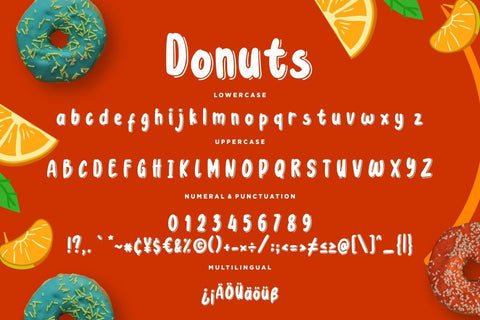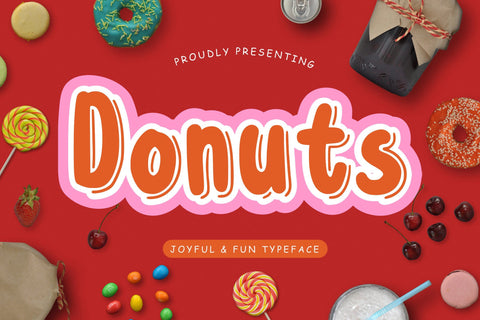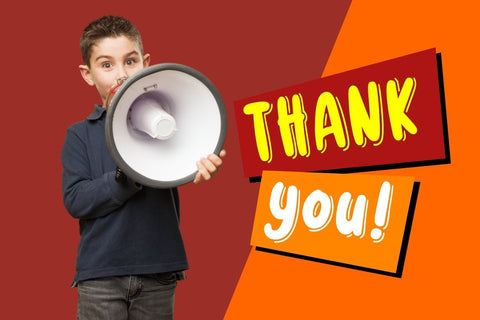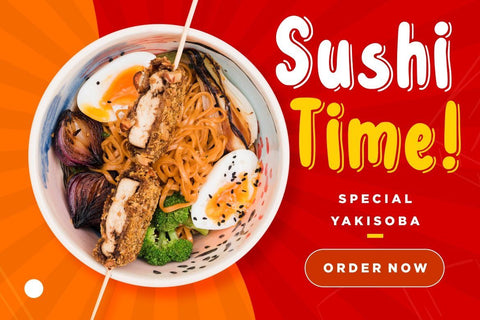
Donuts Joyful & Fun Typeface
Donuts is fun and joyful bold font which suitable to use for children related occasion.
Donuts is perfect for branding projects, logo, wedding designs, social media posts, advertisements, product packaging, product designs, label, photography, watermark, invitation, stationery and any projects that need handwriting taste.
- Ligature
- Fonts include multilingual support for; ä ö ü Ä Ö Ü ß ¿ ¡